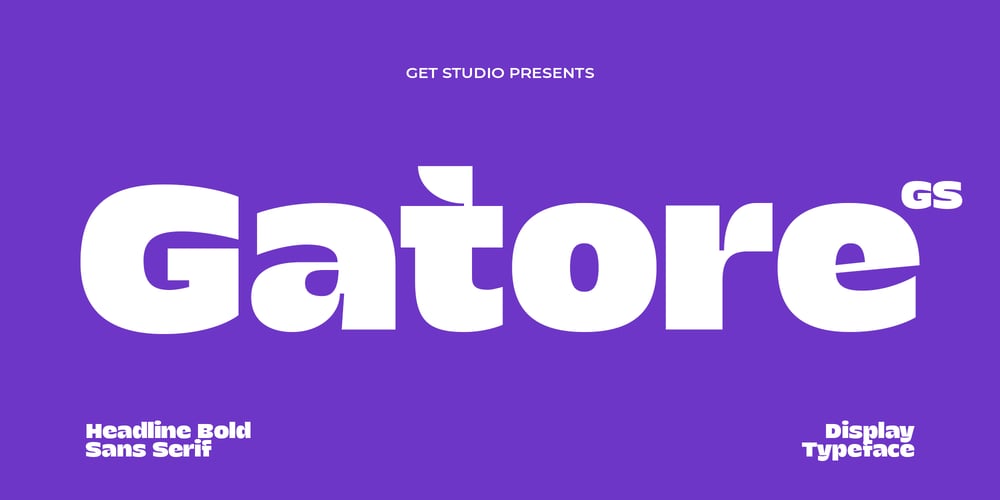
Gatore
Gatore font
Gatore Font Family was designed by Hermansyah and published by Get Studio. Gatore contains 1 styles and family package options. Gatore is a strong and bold sans font that exudes strength and confidence with its clean lines and thick letterforms. It commands attention and adds a modern touch to any design.Features: Uppercase and Lowercase Numeral & Punctuation Multilingual support